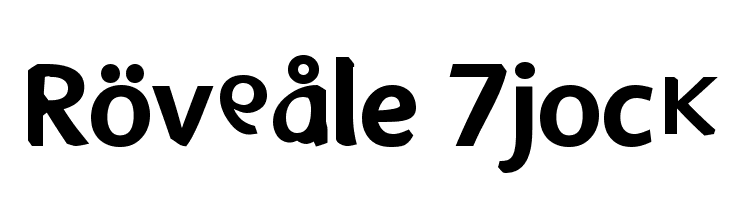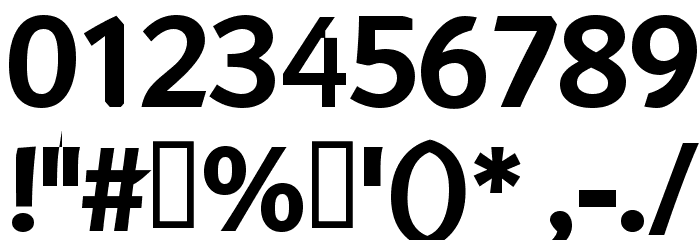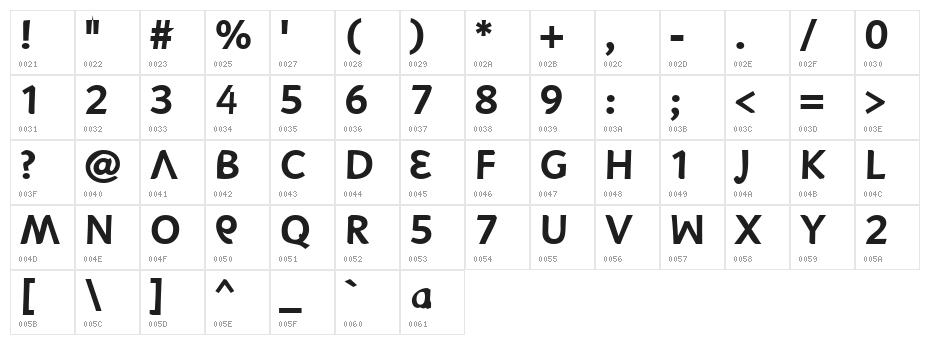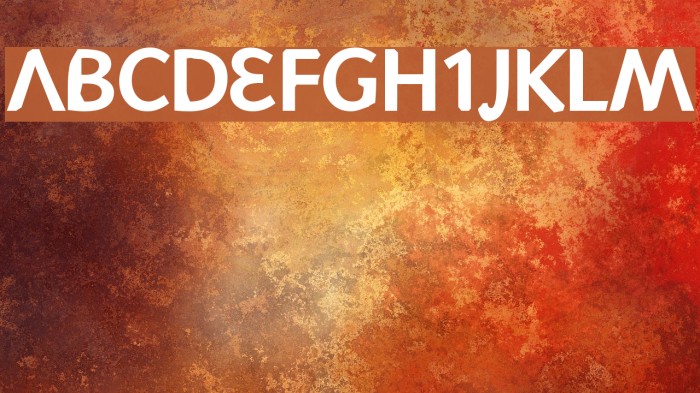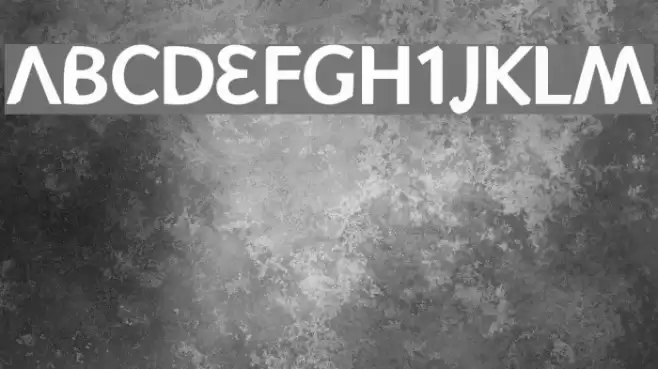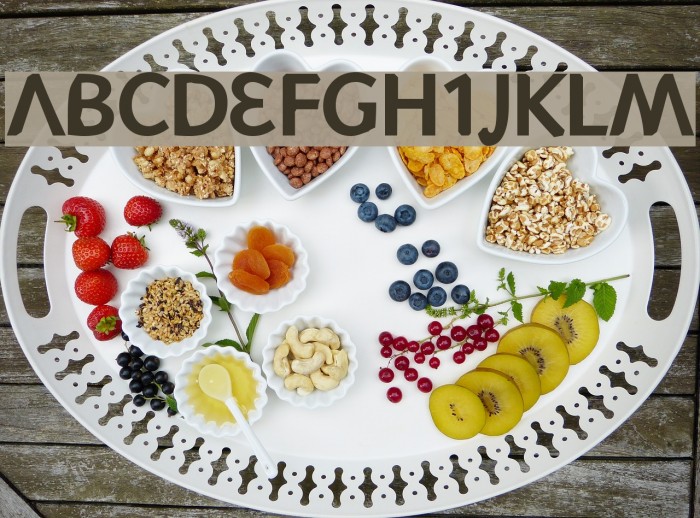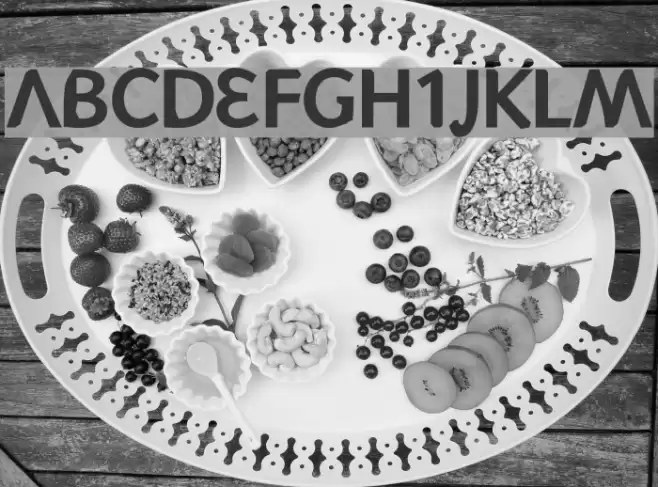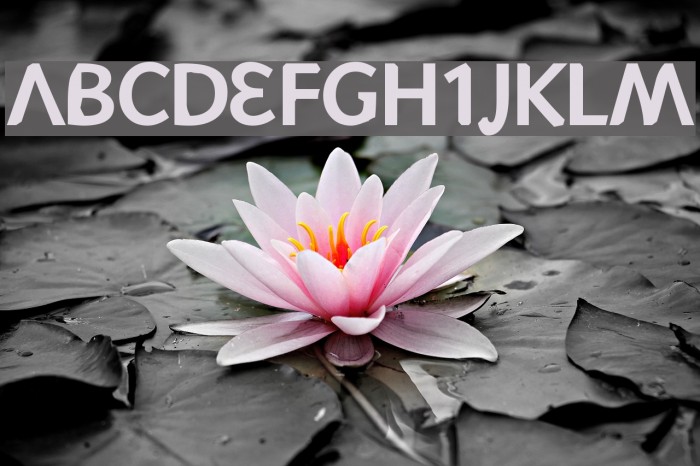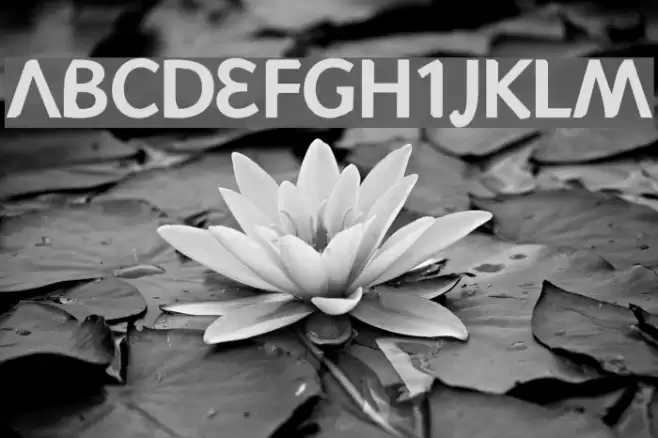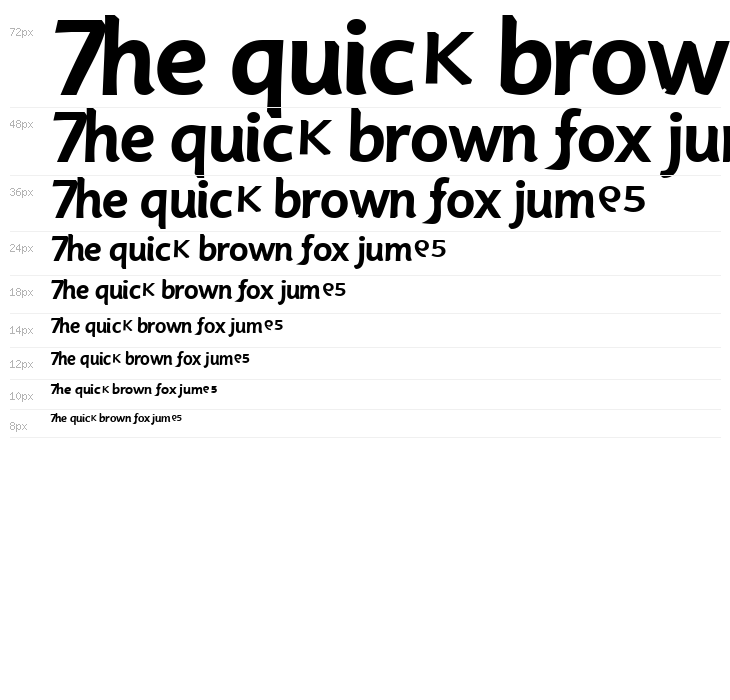
Rövpåle Tjock Font
Rövpåle Tjock Description
This font features a bold and dynamic style with a strong presence. The characters are designed with a slight slant, giving them a sense of movement and energy. The uppercase letters are particularly striking, with unique shapes that stand out, such as the angular 'A' and the curved 'E'. The lowercase letters maintain a consistent style, with rounded edges that add a touch of softness to the overall look. Numbers are clear and bold, ensuring readability. Special characters are well-integrated, maintaining the font's cohesive style. This font is versatile, suitable for a variety of design projects that require a bold and modern aesthetic.